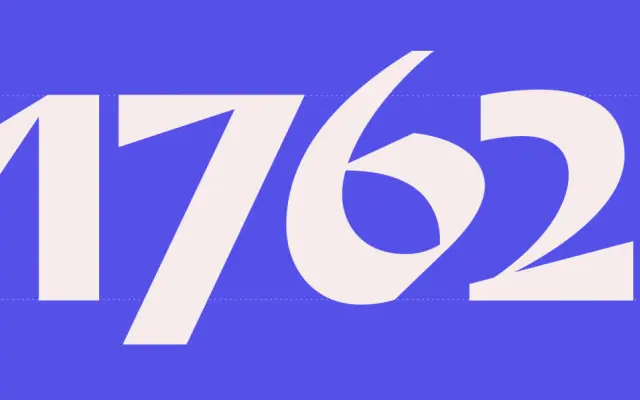
Brevis
Fontfabric · Stefan Yatanski · 2024
A single-weight bold display typeface drawing on early uncial letterforms, released by Fontfabric in 2024.
Designed by Stefan Yatanski, Brevis takes its name from the Latin for 'short' and derives its forms from early uncial calligraphy, redrawn for a contemporary visual register. A single Regular weight with OpenType features including localized forms and ligatures covers Extended Latin and Cyrillic scripts. Suited to posters, album covers, packaging and headline work where a historically flavoured but unconventional display face is needed.
Brevis is classified as display, drawing on early uncial letterforms recast as a bold, single-weight display face. Its calligraphic historic roots and unconventional construction place it firmly in decorative display territory rather than blackletter or script.